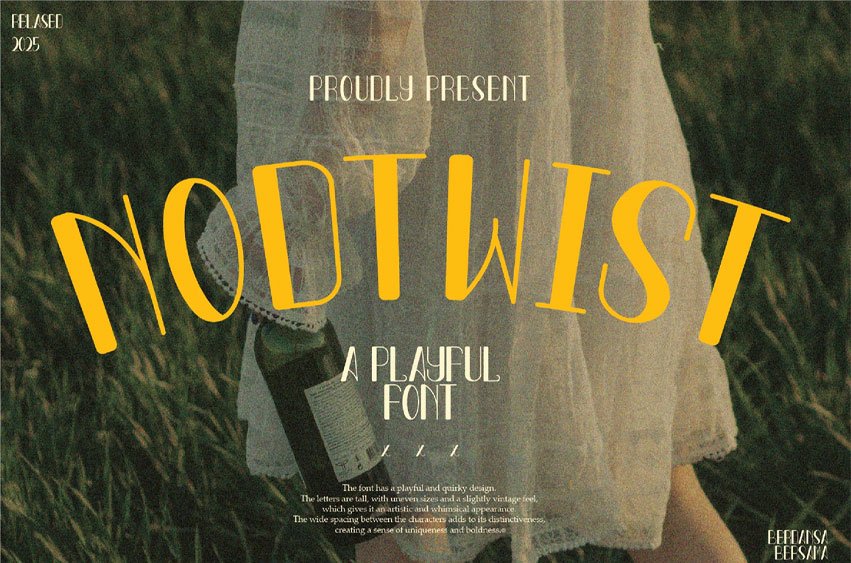
Nodtwist Playful Font is a fun and quirky font that combines playful charm with a touch of originality. Its smooth, rounded letterforms and subtle twists make it perfect for projects that need a lighthearted, engaging feel.
Whether it’s for branding, posters, or children’s designs, Nodtwist adds a lively, friendly vibe to your text, ensuring your message is both inviting and memorable.